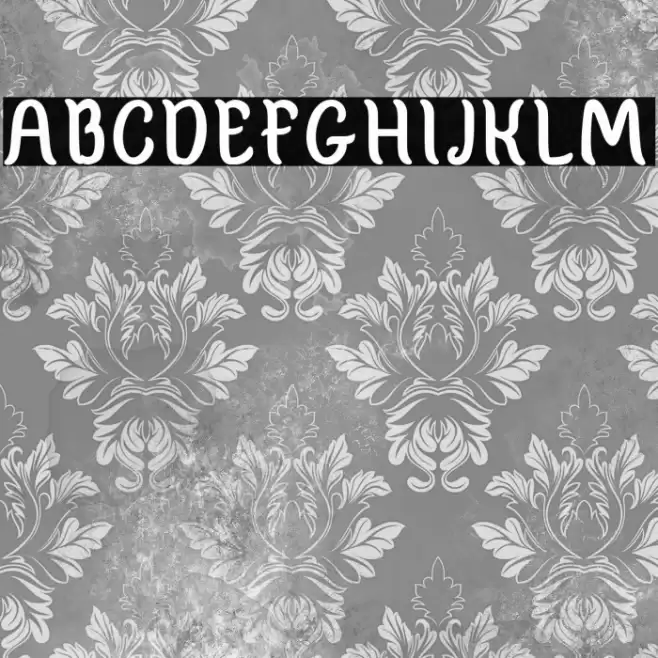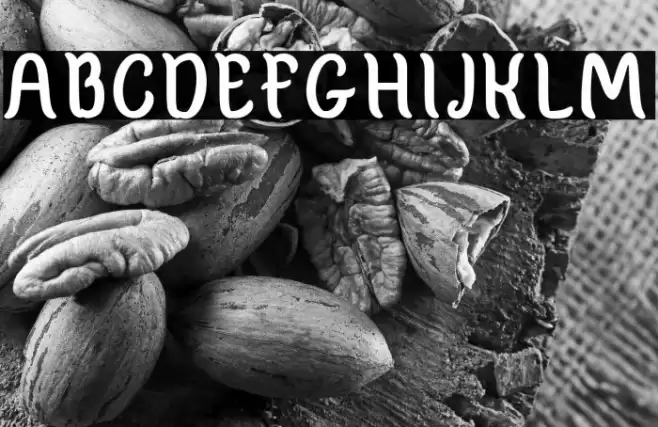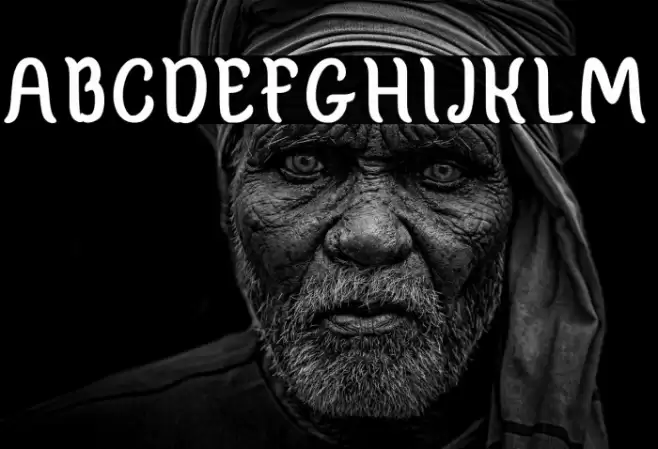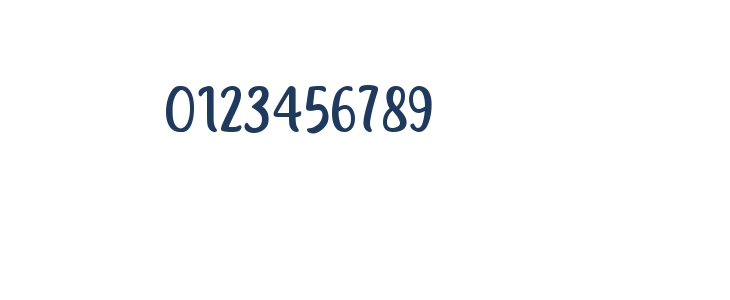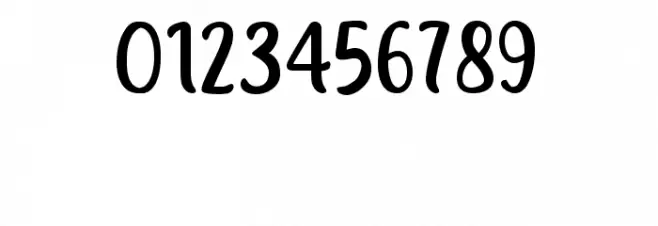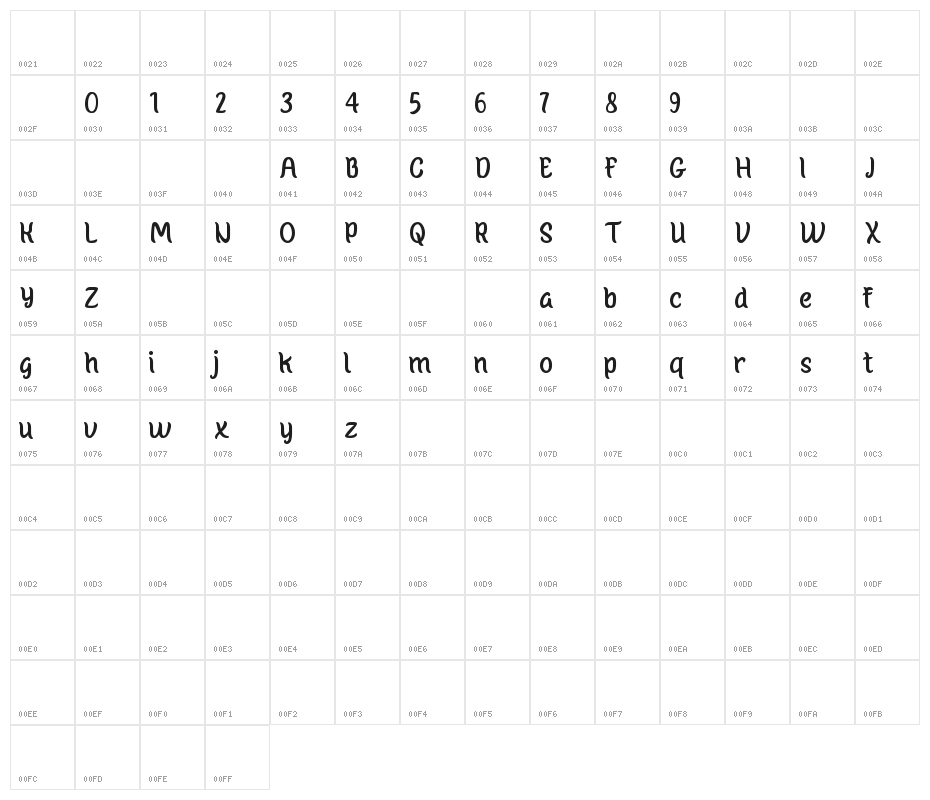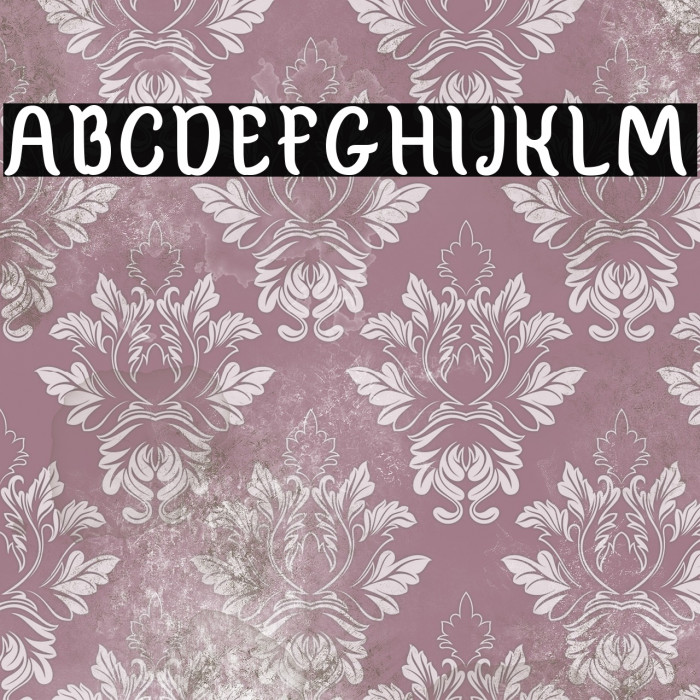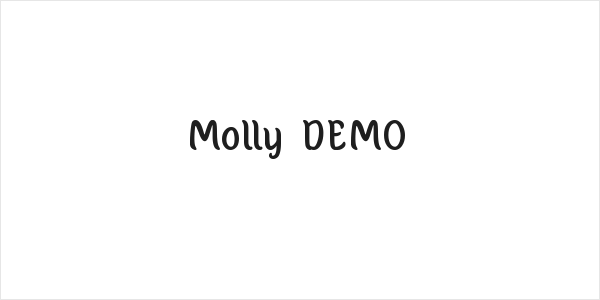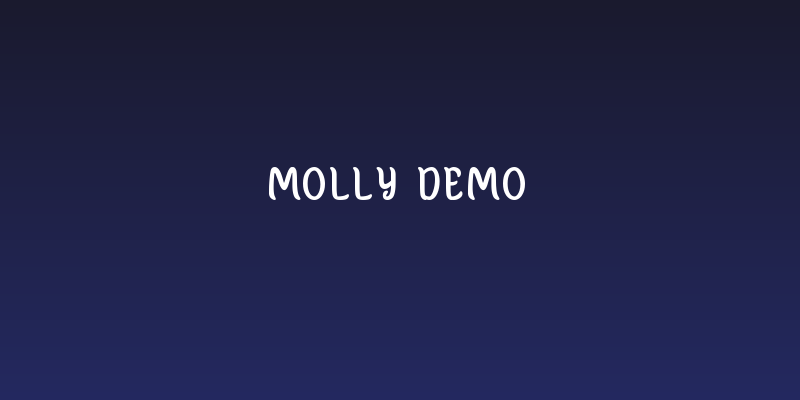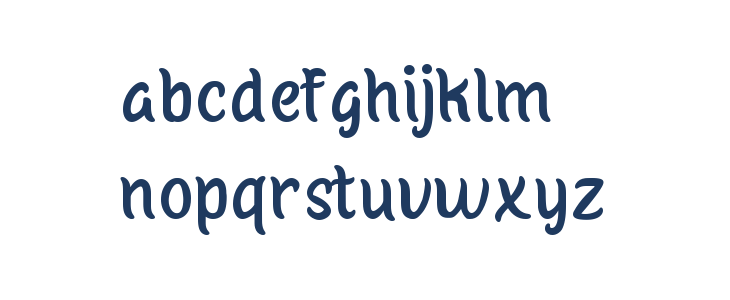
Molly DEMO Font
Molly DEMO Description
This font features a playful and whimsical style with rounded, flowing characters that convey a sense of friendliness and approachability. The letters are slightly slanted, giving them a casual, handwritten feel. Each character is well-defined with consistent stroke thickness, contributing to its readability. The numbers and special characters maintain the same playful aesthetic, ensuring uniformity across all text elements. This font is ideal for projects that require a touch of personality and charm, such as children's books, greeting cards, or creative branding materials.
A playful, handwritten-style font with rounded, flowing characters from Uncategorized fonts.
- Font: Molly DEMO
- Proposed Projects: Children's books, greeting cards, creative branding, casual invitations.
- Overall Style: Playful
- Use Case: Headlines, Logos, Informal text.